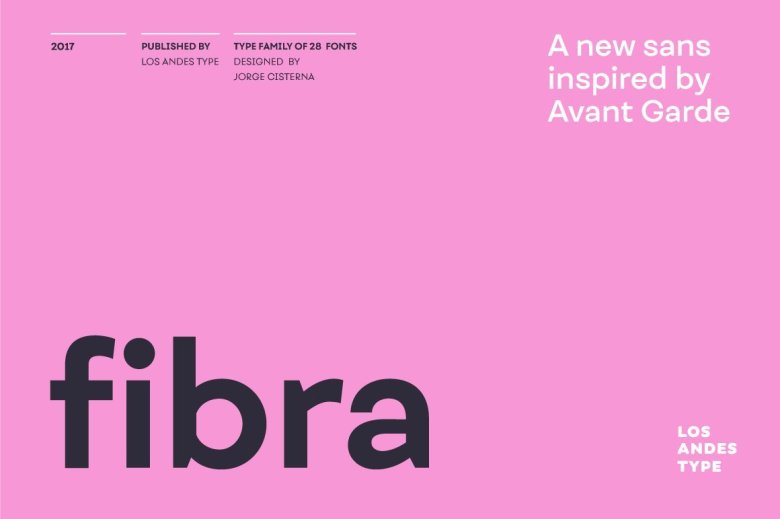
Fibra Font Family
Fibra Font
Introducing Fibra Font Family! Fibra Font designed by Los Andes. Fibra is a geometric sans serif, yet without the typical structural strictness of these kind of fonts, that represents experimental type design. Fibra was specially designed for display use. The font has a very generous x-height that allows for use in corporate text, thanks to its good readability.
Fibra comes with 2 subfamilies—a more ’normal’ Basic family, with a smaller amount of stylistic features, for use in subheadings or any other type of text that requires formality, and an Alt family that shows off the true potential of the font, making it the perfect choice for magazine headlines, posters and logotypes.
Fibra Sans Serif Font Family